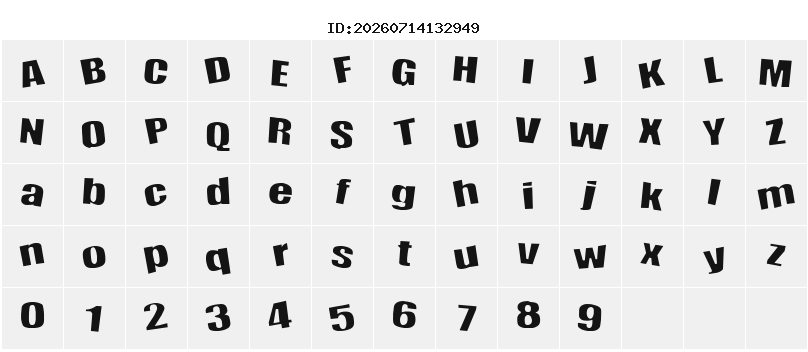
• Font Name: Happy
• Full Font Name: Happy Happy Joy Joy
• PostScript Name: Happy-HappyJoyJoy
• Copyright: Created for MadCaps by Annie de la Vega.
About Happy.ttf
Happy.ttf is a modern, elegant sans-serif font designed for ultimate readability and visual harmony. Perfect for branding, headlines, web design, and print materials.